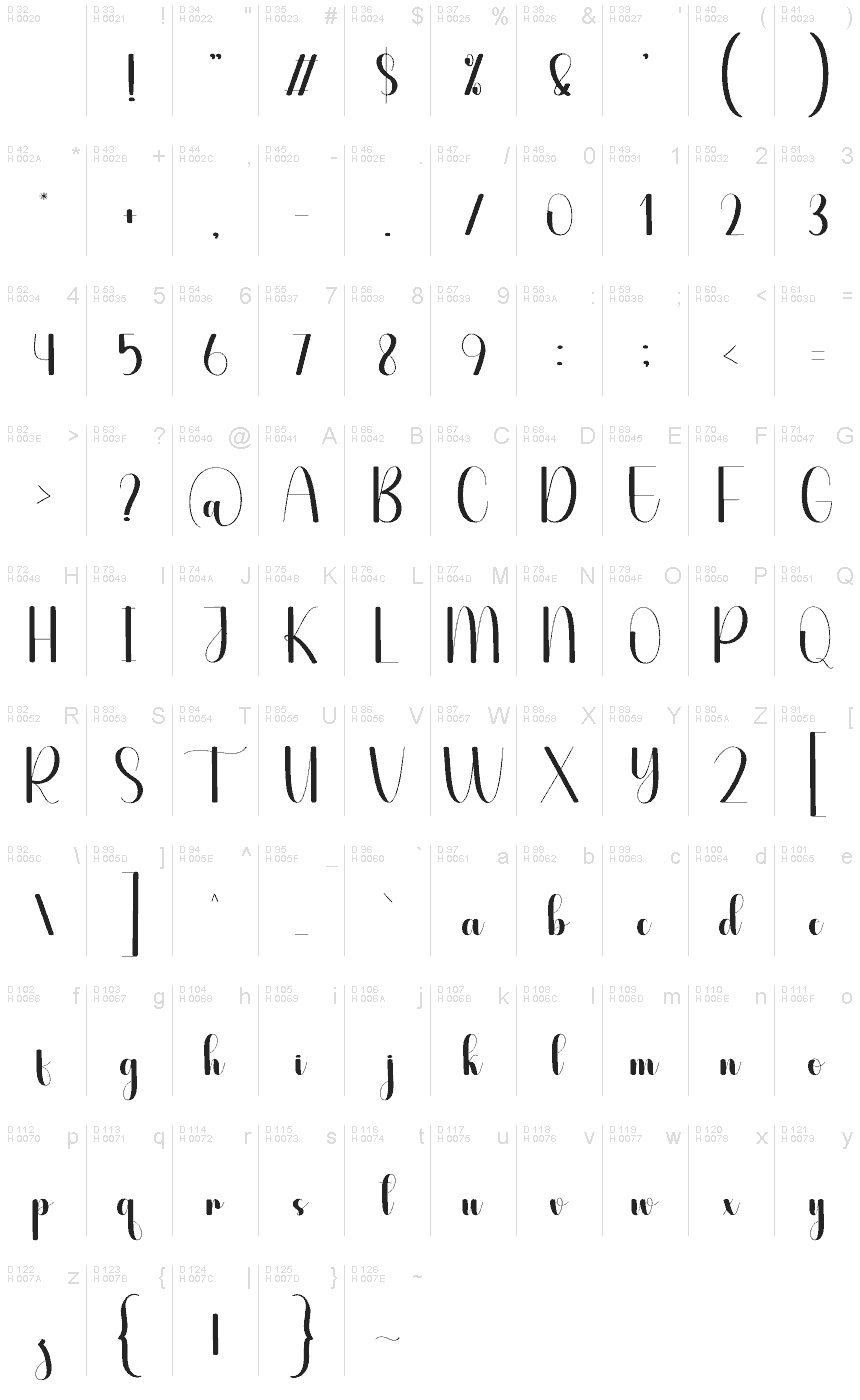
The Daughter
The Daughter font is the new free calligraphy font designed by Scratchones in a beautiful flowing style. This script takes on an elegant and sophisticated appearance through its decorative, classic appeal. Each letter is designed with ornate elements and smooth lines that add glamour and beauty to the font as a whole. The connected letters, along with the various swashes further contribute to the lovely presentation of each word.
Various occasions require this awesome calligraphy typography between branding designs, stationery items, invitations for weddings or other special events, greeting cards, logos, advertisements in which elegance is needed or even further exotic purposes like tattoos.